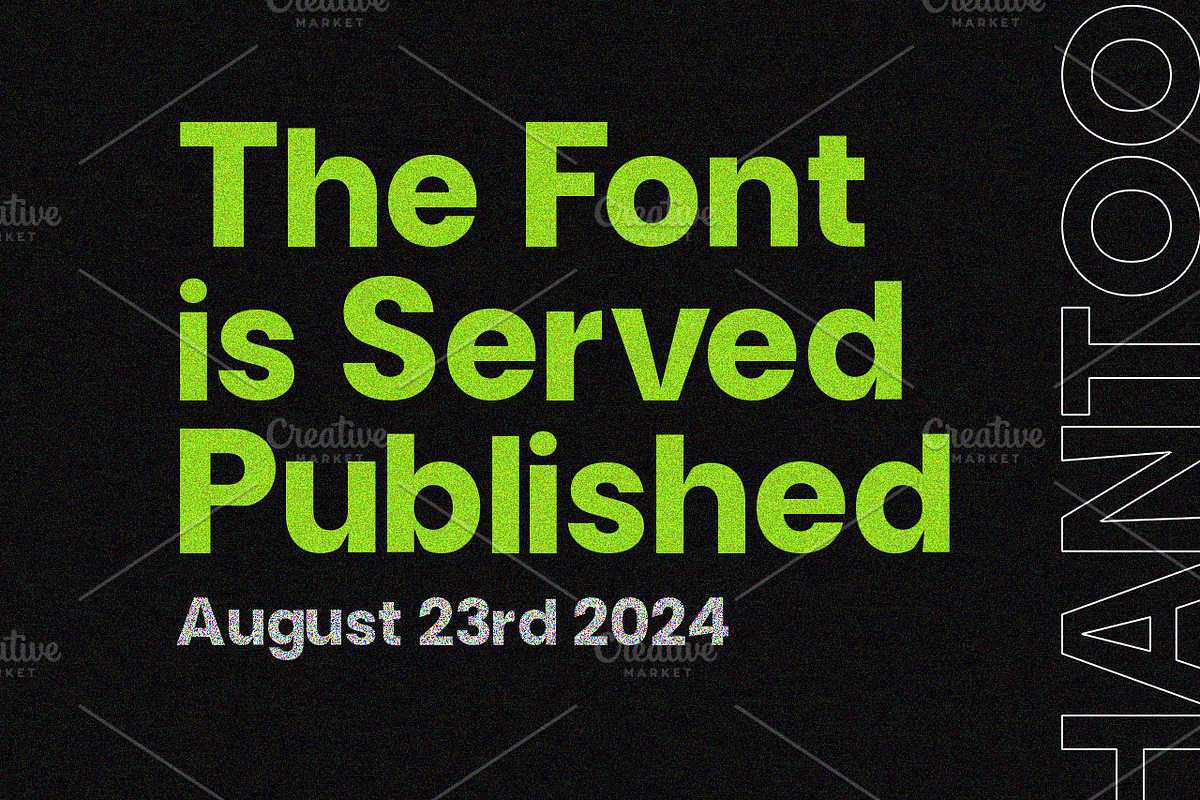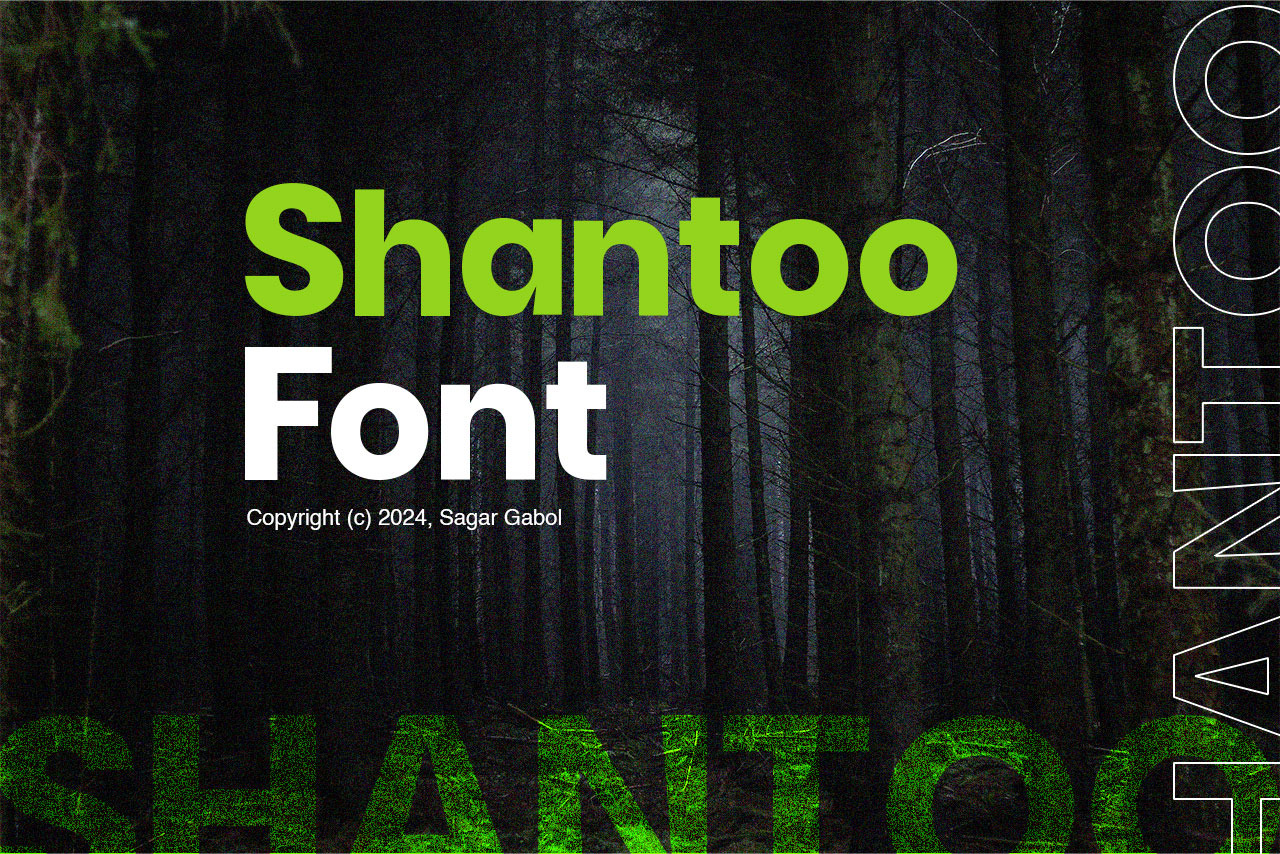
Shantoo - A Bold Sans Serif Font
Ready to make a bold statement in your designs? Meet Shantoo Bold, the typeface that's redefining the Sans-Serif family with a modern twist! This isn't just another font—it's the go-to choice for designers who want to deliver clean, impactful visuals with a contemporary flair.
With Shantoo Bold, every letter is crafted to perfection, offering sleek lines and balanced geometry that make your text stand out in any setting. It's versatile enough to be your workhorse for branding projects, editorial layouts, or web design. Whether you’re aiming for a minimalist look or a striking headline, Shantoo Bold handles it all with effortless sophistication.
Embrace the power of simplicity! Shantoo Bold brings a fresh perspective to classic sans-serif design, adding a touch of elegance that feels both timeless and on-trend. Perfect for logos, posters, and social media graphics, this font will elevate your work to new heights with its commanding presence and clean lines.
But Shantoo Bold isn’t just about looks—it’s about making a statement. It captures attention with its bold, confident strokes, making sure your message is seen loud and clear. It’s the ideal choice for designers who want to create a lasting impression.